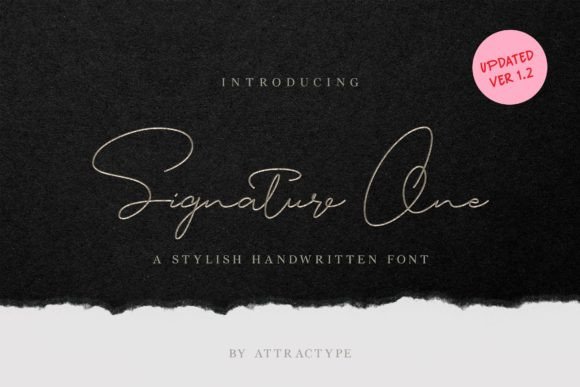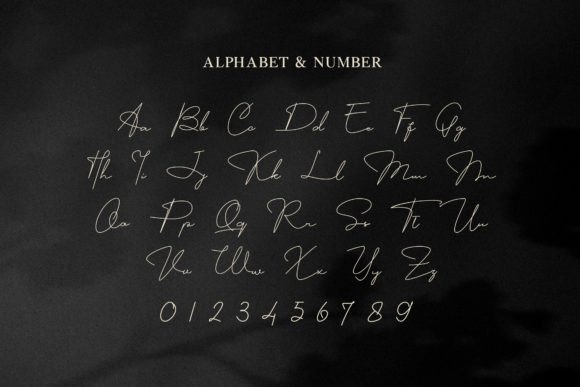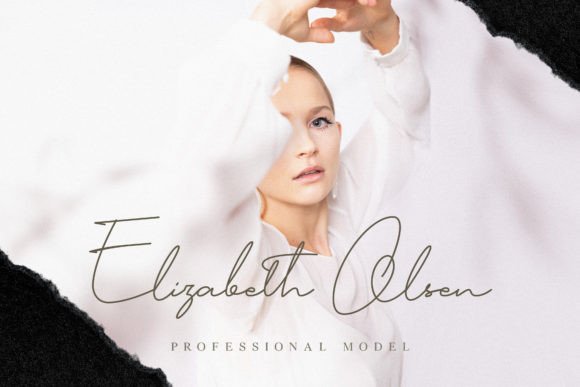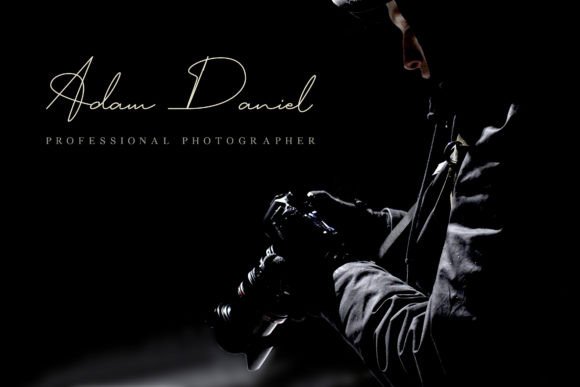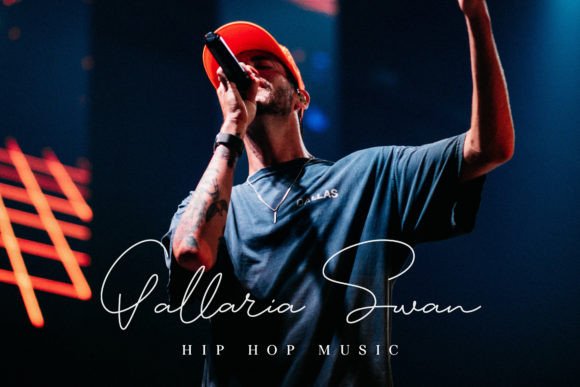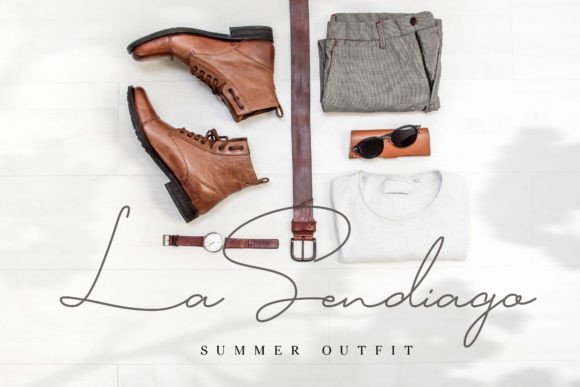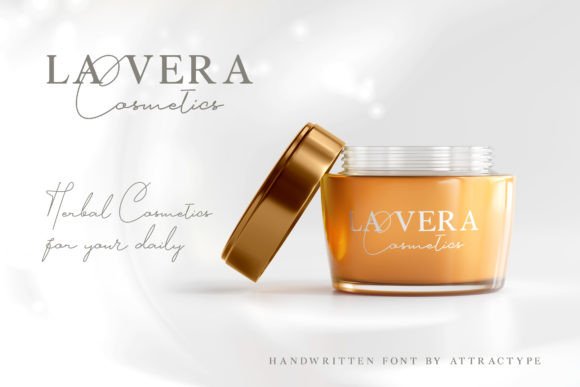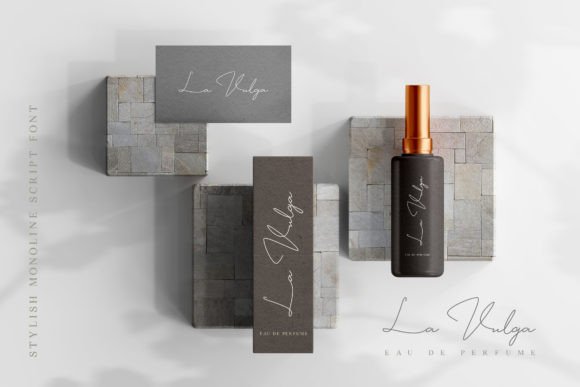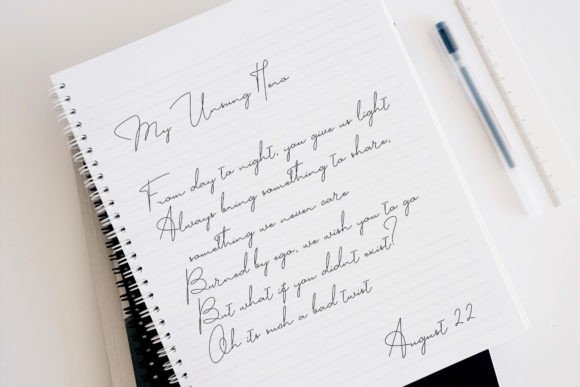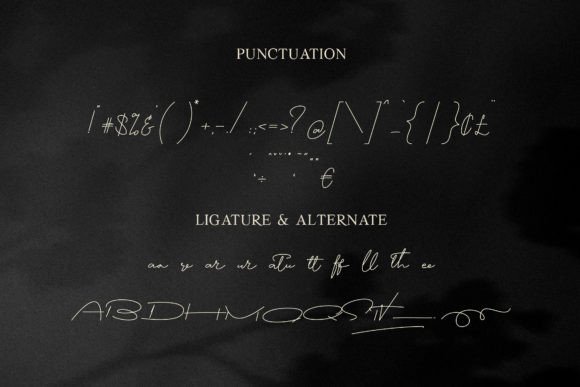
Signature One Font
About Signature One Font
Signature One is a dazzling script font that exudes elegance and sophistication. Meticulously crafted with precision and attention to detail, this font stands out as a stunning addition to your font library, showcasing versatility and the ability to enhance a wide array of creative projects.
The neatly crafted and highly detailed design of Signature One makes it a valuable asset, suitable for various topics or themes. The script style adds a touch of refinement to your designs, making them more polished and visually appealing.
One notable feature of Signature One is its PUA encoding, which allows easy access to all glyphs and swashes. This feature simplifies the customization process, offering you the flexibility to personalize your designs effortlessly. Whether you want to add stylish swashes to your invitations or create a distinctive look for your branding, Signature One provides the tools to do so with ease.
Embrace the sophistication of Signature One as you explore its potential in your design projects. Watch as it contributes a touch of glamour and style, making your creations stand out and leaving a lasting impression. Make Signature One your go-to font when you want to infuse your designs with a sense of elegance and refinement.